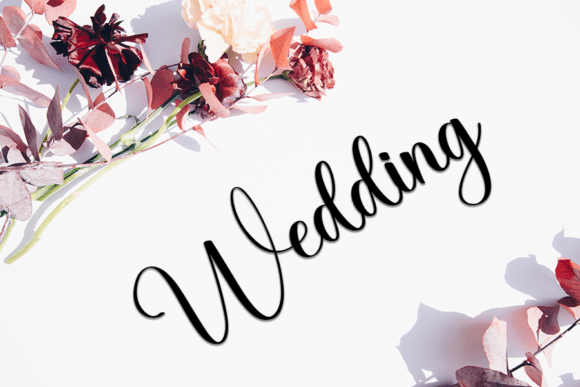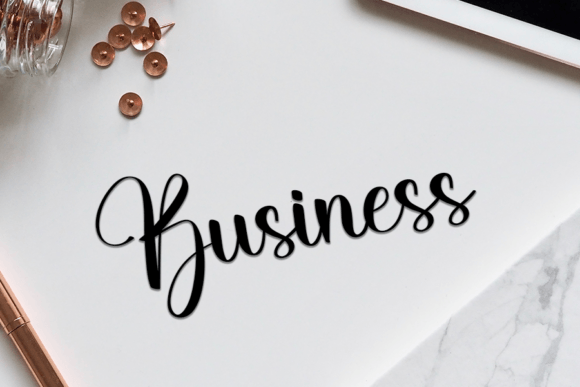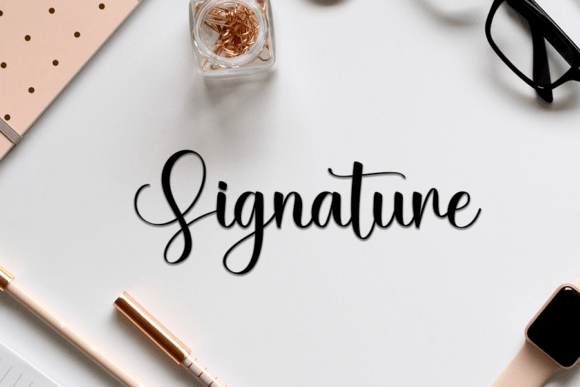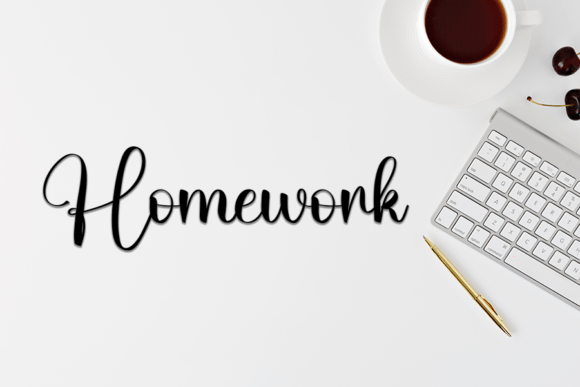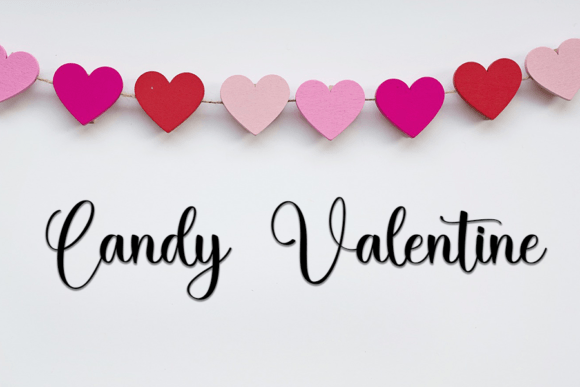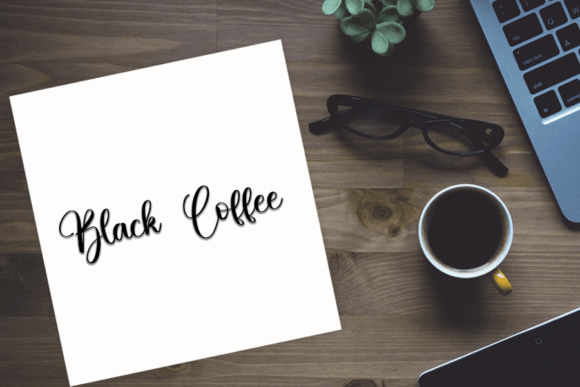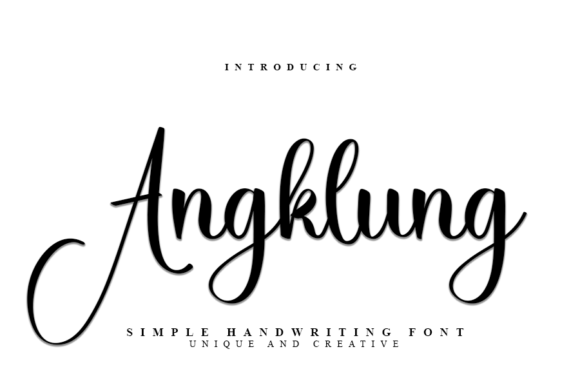
Discover the Beauty of Angklung Font: Elevate Your Designs with this Bold and Beautiful Script Font
Are you a designer, crafter, or digital artist looking for a font that can add a touch of elegance and sophistication to your work? Look no further than the Angklung Font. This stunning script font is perfect for a variety of projects, from crafts and digital designs to presentations and greeting cards. In this article, we’ll explore the features and benefits of Angklung Font, and why it’s sure to become your go-to font for any occasion.
What is Angklung Font?
Angklung Font is a bold and beautiful script font that is designed to make a statement. Its elegant and flowing lines make it perfect for a wide range of applications, from formal documents to creative projects. The font is highly versatile, and can be used for both personal and commercial projects.
Key Features of Angklung Font
• Bold and Beautiful: Angklung Font is a bold and eye-catching font that is sure to grab attention. Its beautiful script lines make it perfect for projects where you want to make a statement.
• Highly Versatile: This font is highly versatile and can be used for a wide range of projects, from crafts and digital designs to presentations and greeting cards.
• Elegant and Sophisticated: Angklung Font has an elegant and sophisticated feel that makes it perfect for formal documents and creative projects.
• Easily Readable: Despite its bold and decorative lines, Angklung Font is easily readable, making it perfect for both digital and print projects.
Why Choose Angklung Font?
So why choose Angklung Font for your next project? Here are just a few reasons why this font is sure to become your favorite:
• Unique and Creative: Angklung Font is a unique and creative font that will set your project apart from the rest.
• Time-Saving: With Angklung Font, you can create professional-looking projects in no time. Its easily readable lines and elegant feel make it perfect for quick and easy designs.
• Multi-Purpose: This font is perfect for a wide range of projects, from digital designs to crafts and presentations.
How to Use Angklung Font
Using Angklung Font is easy. Here are a few tips to get you started:
• Crafts: Use Angklung Font to add a touch of elegance to your crafts, such as scrapbooking, card making, and DIY projects.
• Digital Design: Use Angklung Font to create stunning digital designs, such as social media graphics, blog posts, and website headers.
• Presentations: Use Angklung Font to add a touch of sophistication to your presentations, such as business presentations, lectures, and workshops.
• Greeting Cards: Use Angklung Font to create beautiful greeting cards for special occasions, such as birthdays, weddings, and holidays.
In conclusion, Angklung Font is a bold and beautiful script font that is perfect for designers, crafters, and digital artists. Its elegant and sophisticated feel makes it perfect for a wide range of projects, from formal documents to creative projects. With its highly versatile design, easily readable lines, and cost-effective solution, Angklung Font is sure to become your go-to font for any occasion.